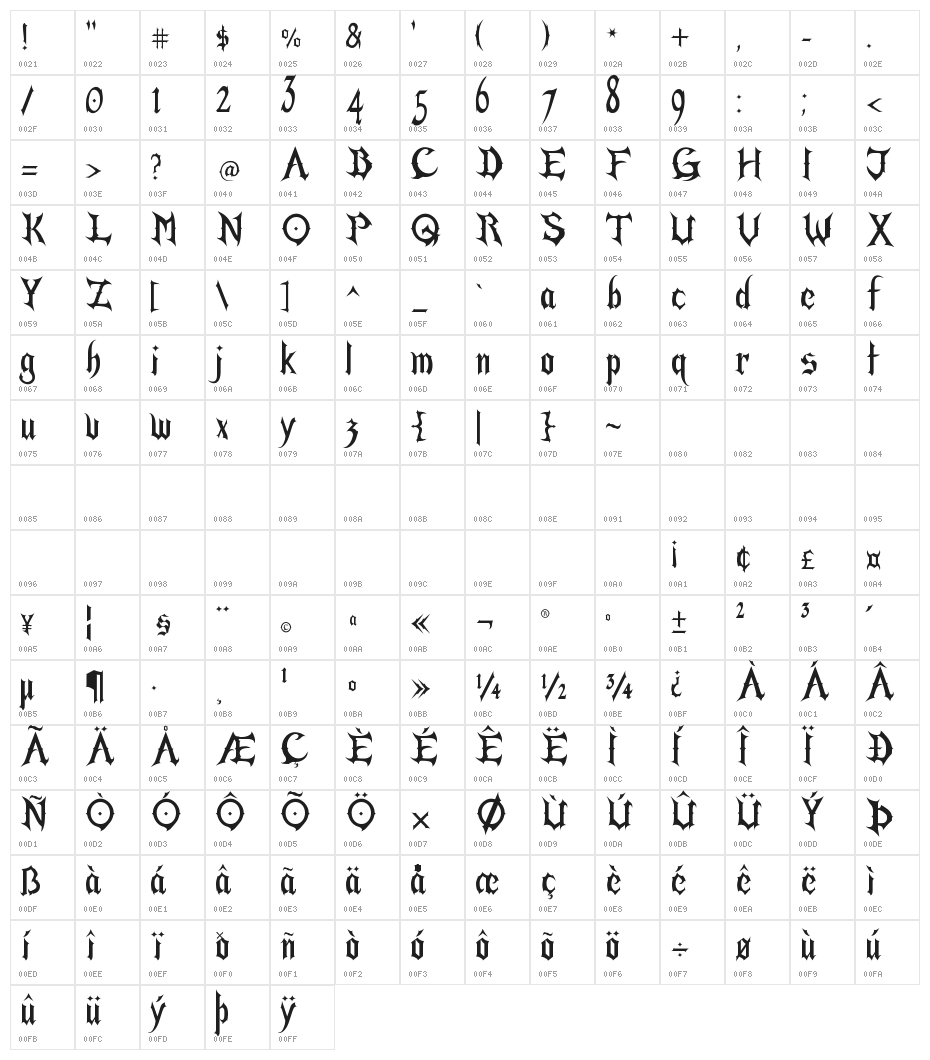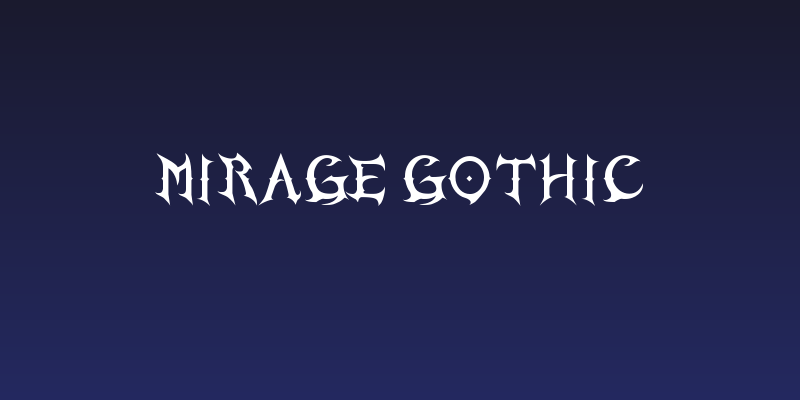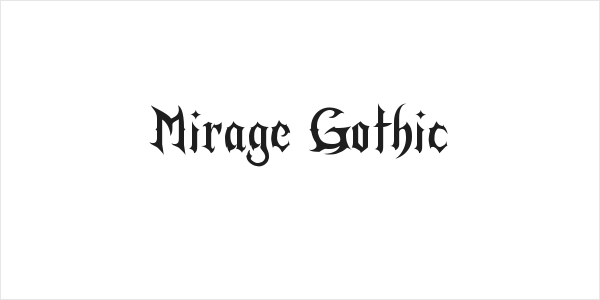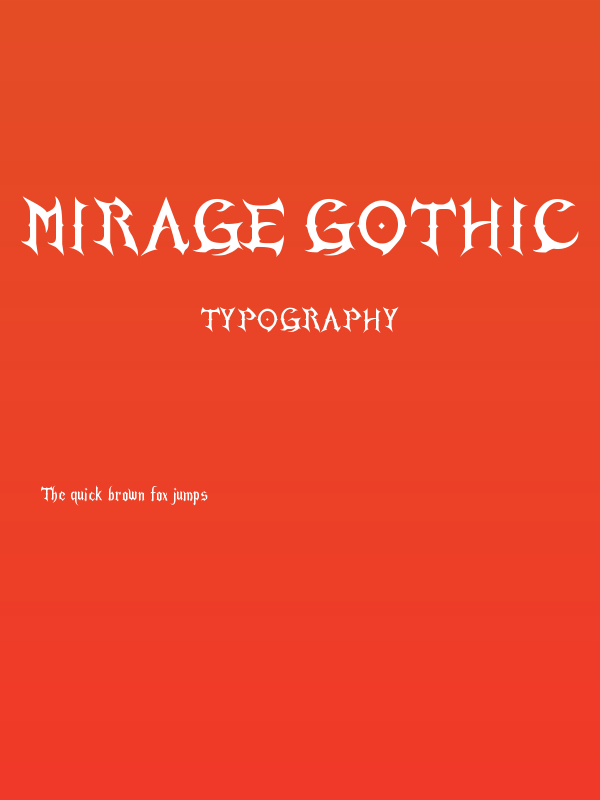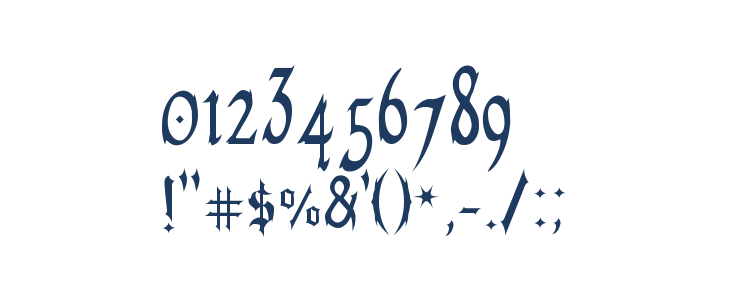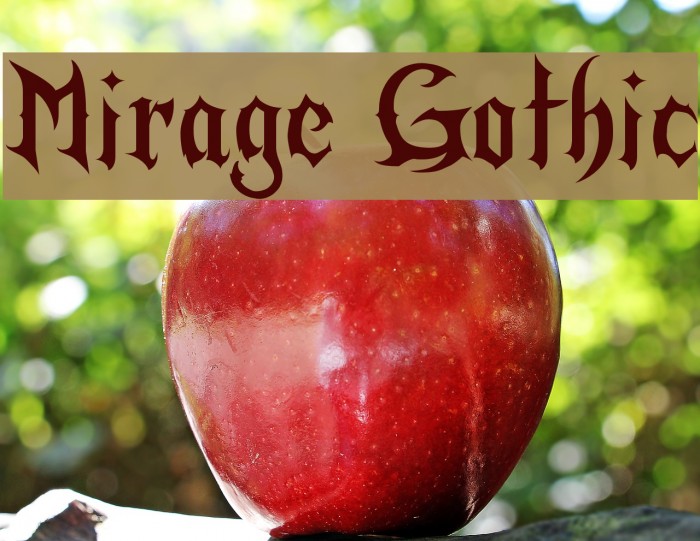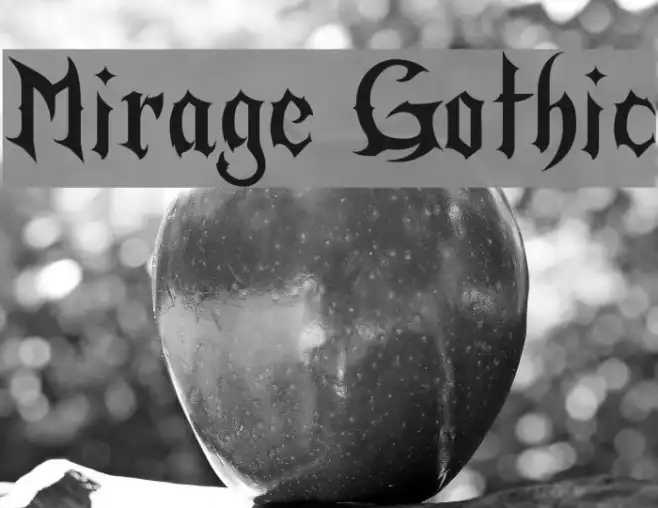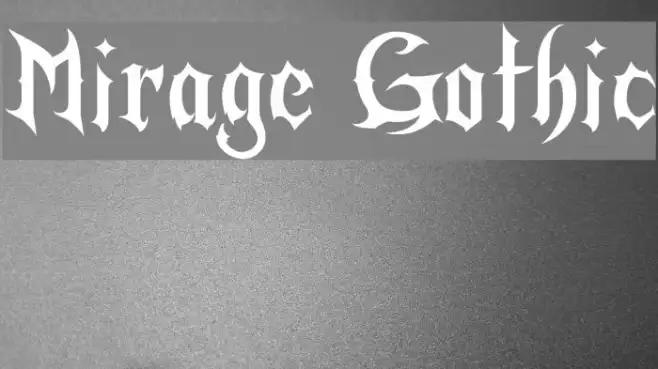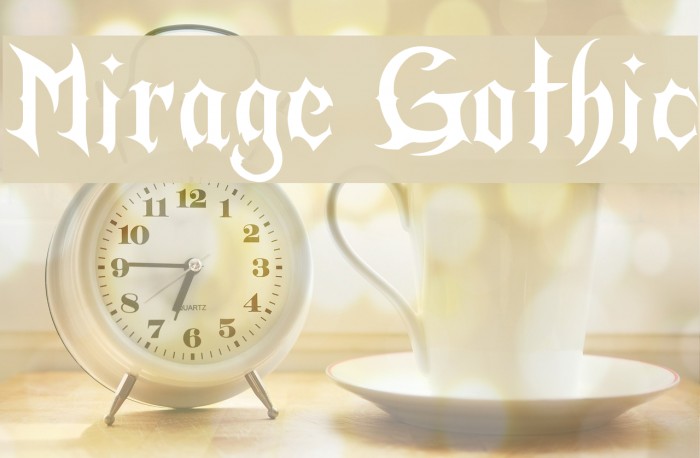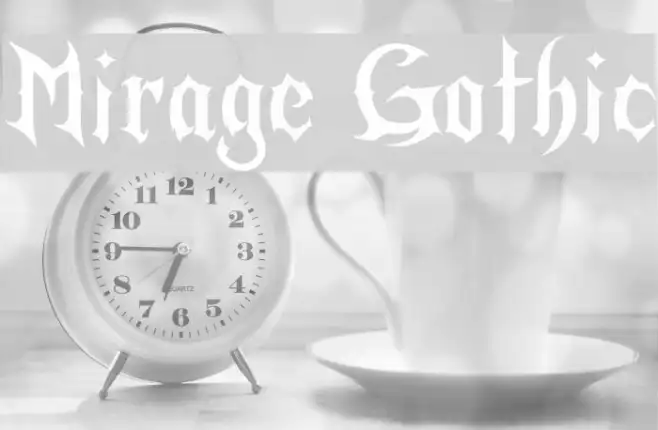
Mirage Gothic Font
Mirage Gothic Description
This font exhibits a striking and dramatic Gothic style, characterized by sharp, angular edges and a bold presence. The uppercase letters are particularly ornate, with intricate details that give them a medieval, almost mystical appearance. The lowercase letters maintain the same sharpness, yet are slightly more subdued, providing a balanced contrast. Numbers and special characters follow the same design principles, ensuring consistency across all elements. The overall aesthetic is both powerful and elegant, making it suitable for projects that require a strong visual impact.
| Proposed Projects | Ideal for fantasy-themed designs, book covers, posters, and branding that requires a dramatic and historical touch. |